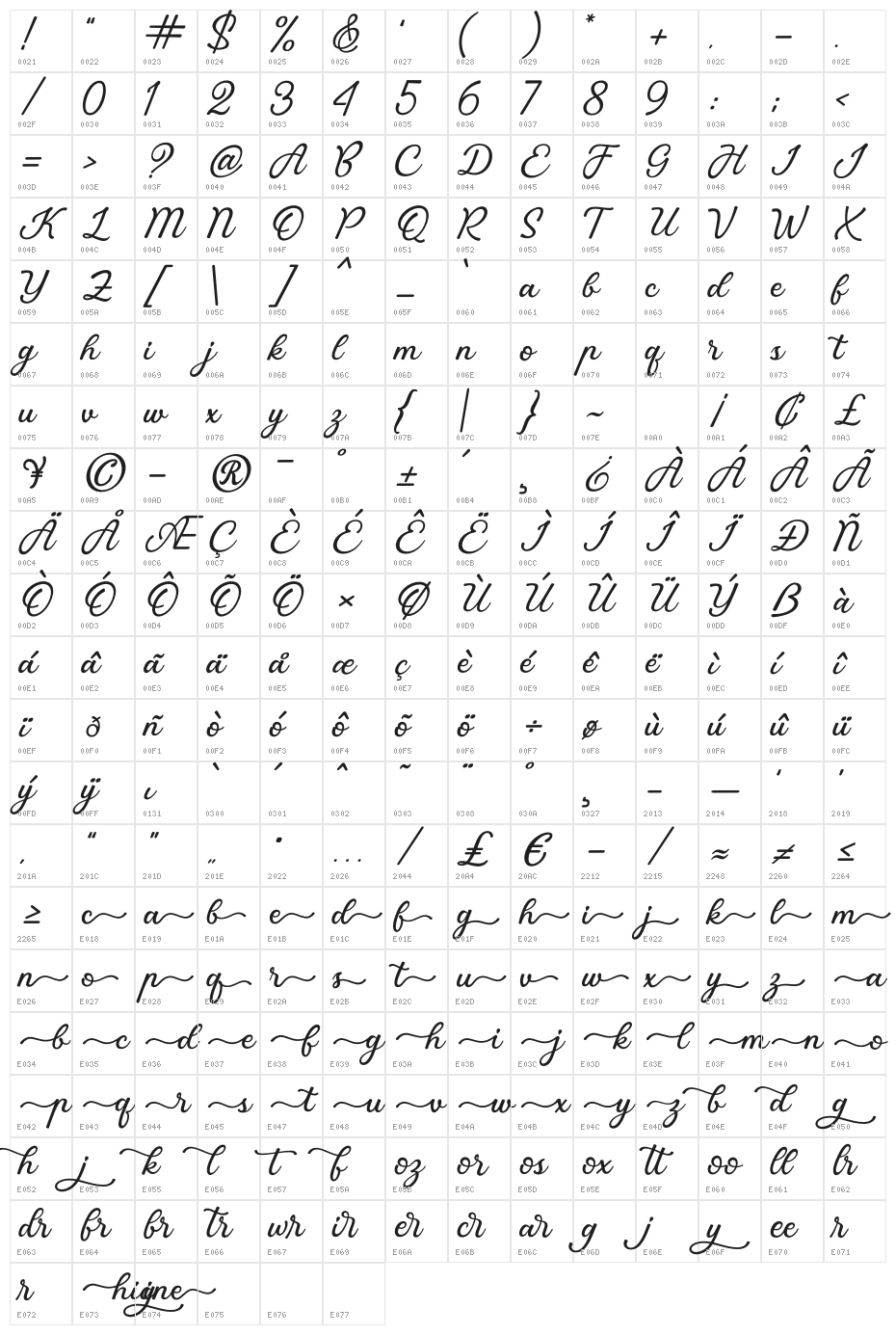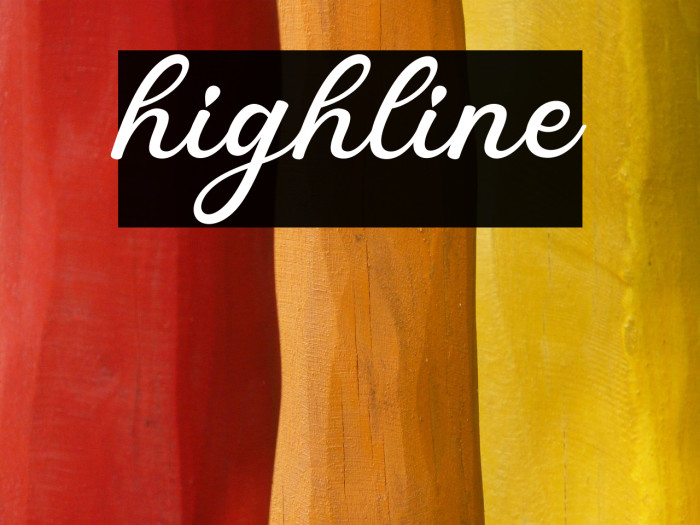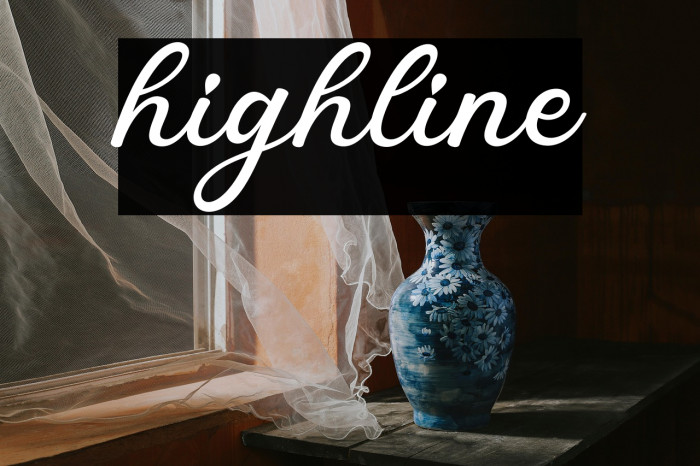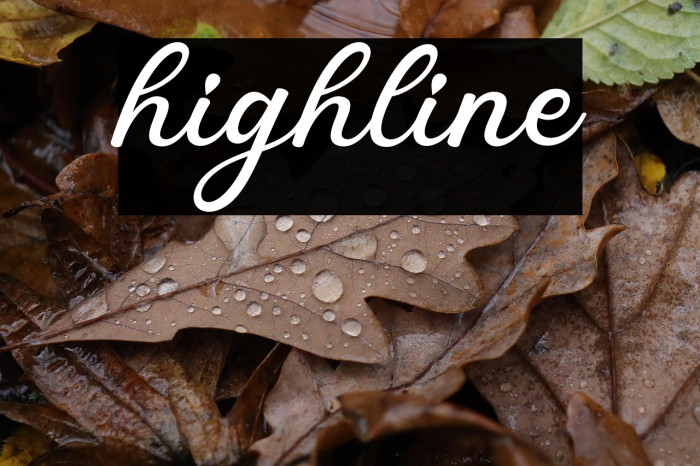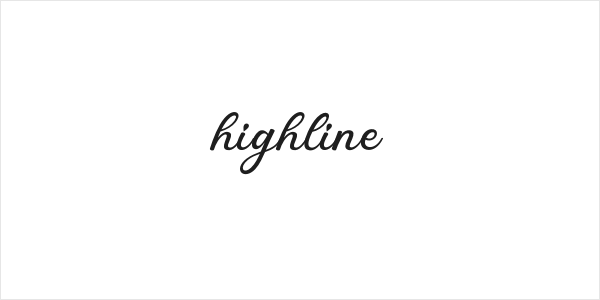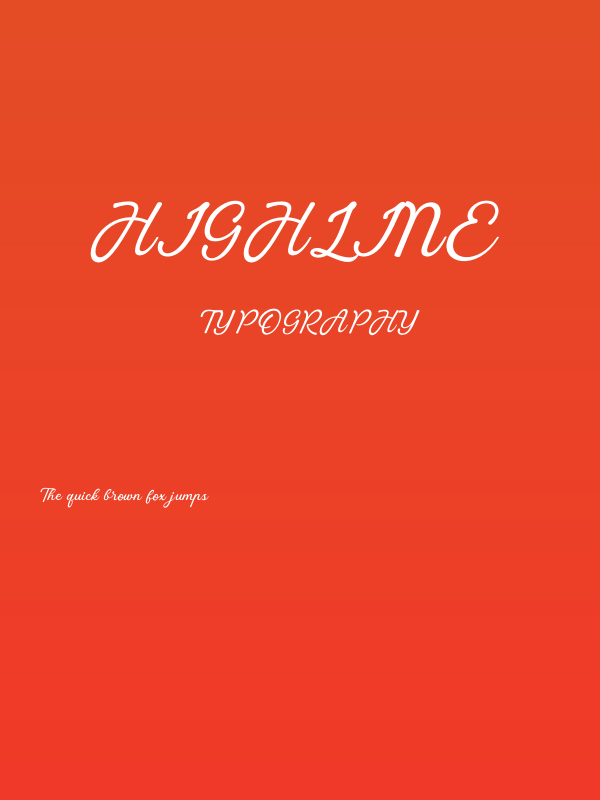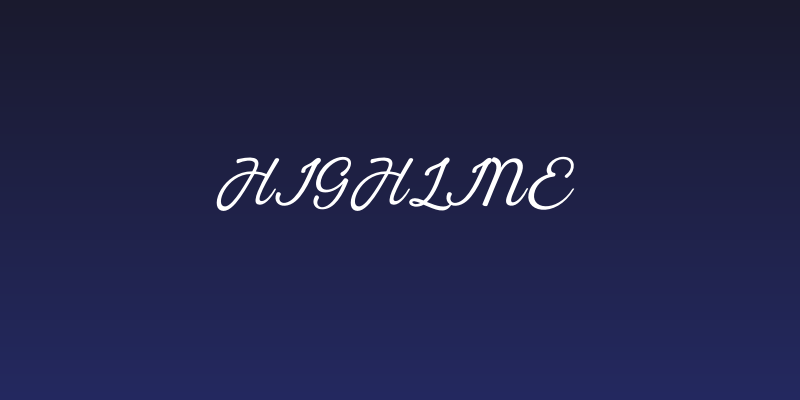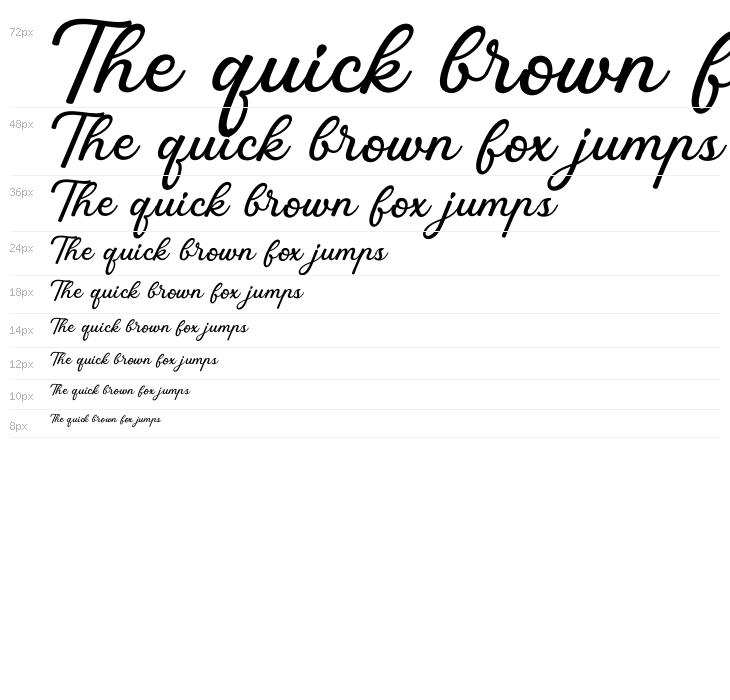
highline Font
highline Description
This font features a flowing, cursive style with elegant, sweeping strokes that convey a sense of sophistication and fluidity. The uppercase letters are slightly more ornate, with graceful loops and curves, while the lowercase letters maintain a consistent, smooth flow. The numerals are designed with a similar flair, ensuring a cohesive look across all characters. Special characters are thoughtfully integrated, maintaining the overall aesthetic. The font's design is both classic and modern, making it versatile for various applications.
| Use Case | Logos, Invitations, Decorative headlines |
| Proposed Projects | Ideal for wedding invitations, elegant branding, personal signatures, and decorative headlines. |